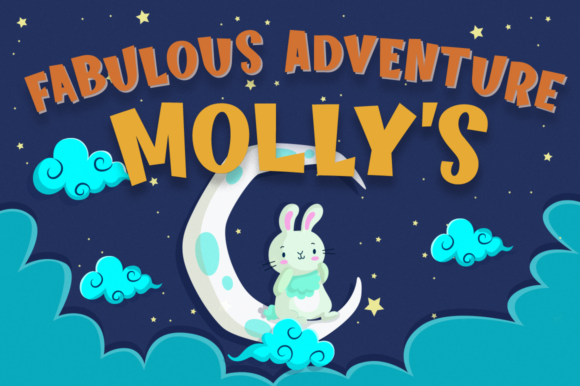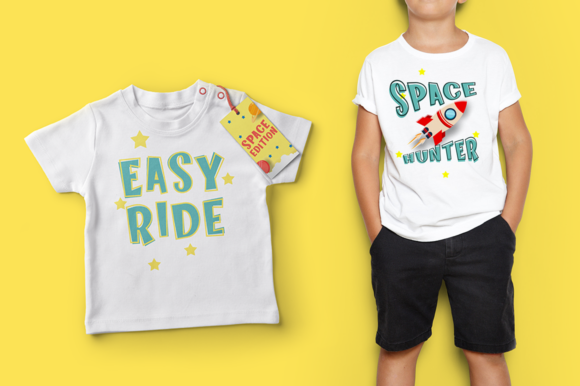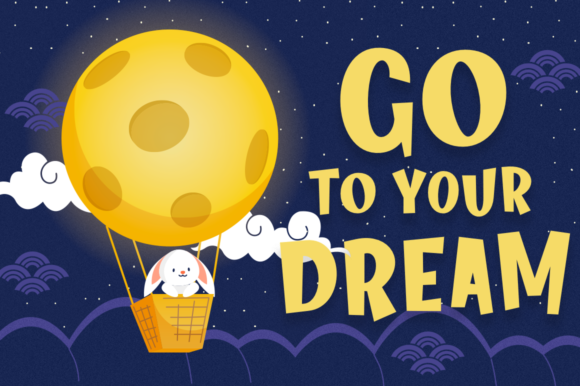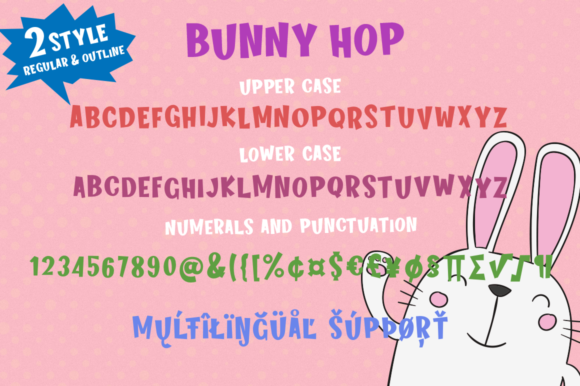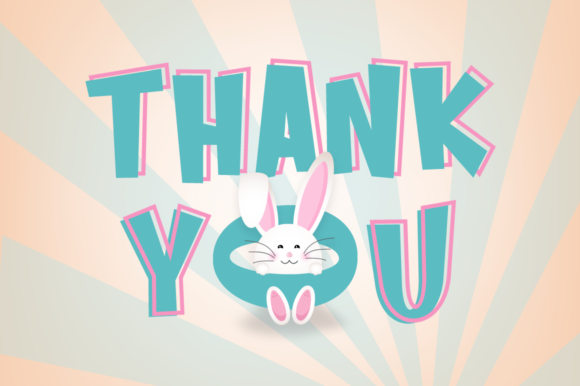
The Font that Makes Designers Giggle: Bunny Hop Font
Remember that moment when you stumbled upon the perfect font that made you laugh out loud? For many designers, that moment was when they discovered the Bunny Hop Font. This incredibly funny, playful, and bold font with a whimsical twist is a game-changer in the world of typography.
Bunny Hop Font is designed to add a touch of humor and personality to any design project. Whether you’re creating a social media post, a logo, or a flyer, this font is sure to bring a smile to your face and make your design stand out from the crowd. For designers, the Bunny Hop Font is a valuable tool that can help them connect with their audience and create engaging, memorable designs.
Bunny Hop Font Key Features
- Font Style: A playful, handwritten font with a unique and whimsical feel.
- Unique Characteristics: The Bunny Hop Font features a distinctive, bouncy feel, with each letter and symbol carefully crafted to evoke a sense of movement and energy.
- Character Set: Includes a wide range of characters, including uppercase and lowercase letters, numbers, punctuation marks, and special symbols.
Bunny Hop Font Review
I recently had the chance to work with the “Bunny Hop Font” and I must say it’s a unique and quirky addition to any design project. ✨ The font’s playful, bouncy feel is perfect for children’s books, animations, or any project that needs a fun and energetic vibe. ✨ The font’s designer has done an excellent job in capturing the essence of a hopping bunny, making it an instant favorite among designers who love cute and whimsical typography.
- ✨ Unique and playful feel that’s perfect for children’s projects or animations.
- ✨ Excellent for designers who love cute and whimsical typography.
- ✨ The font is highly customizable, allowing designers to adjust its size, color, and style to suit their needs.
- ⚠️ Limited legibility at small font sizes, making it unsuitable for projects that require a lot of text.
- ⚠️ May not be the best choice for formal or professional projects, as its playful nature may not be taken seriously.
- ⚠️ Some designers may find the font too childish or cutesy, which may not appeal to their personal taste.
The “Bunny Hop Font” is a delightful addition to any designer’s toolbox. While it may have some limitations, its unique and playful feel makes it a standout choice for designers who love cute and whimsical typography. With a little creativity, this font can add a touch of magic to any project, making it a great choice for designers who want to add a bit of whimsy to their work.
Getting the Most Out of the Bunny Hop Font
For optimal results, use the Bunny Hop Font in conjunction with bold or italic text to create visual interest. Experiment with different font sizes and colors to add depth to your design.
The Bunny Hop Font is perfect for:
- Children’s books and educational materials.
- Party invitations and decorations.
- Fun and playful advertisements.
Alternatives to Bunny Hop Font
The Bunny Hop Font is a playful, handwritten font used for various design projects. However, designers often seek alternatives that offer unique characteristics and flexibility. Here are a few options:
Great Vibes Font is a beautiful, handwritten script font that resembles a combination of elegant and casual styles. It is ideal for use in titles, headings, and quotes in wedding invitations, greeting cards, and other creative projects.
Great Vibes Font offers a more refined and sophisticated look compared to Bunny Hop Font, which is more playful and quirky. Great Vibes Font is suitable for formal events and elegant designs, whereas Bunny Hop Font is better suited for casual and fun projects.